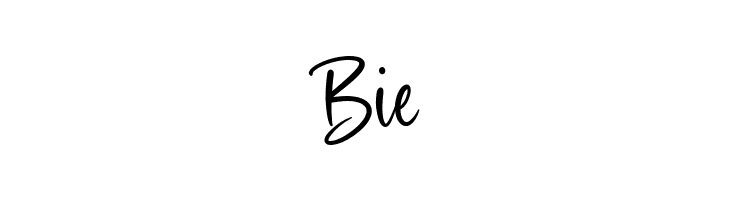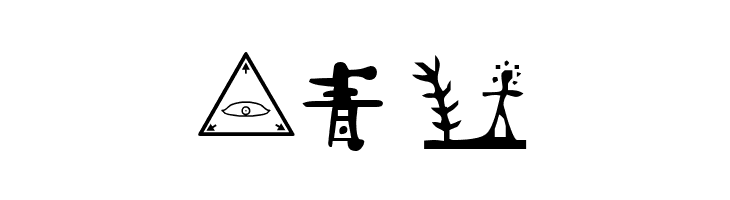
A playful and dynamic handwritten font with fluid strokes and a casual style.
A bold, geometric font with a modern, industrial feel.
Highly decorative font with pictographic, symbolic glyphs.
A graceful and elegant script font with connected characters and a cursive style.
A modern, handwritten font with elongated, elegant letterforms.
A bold, dripping font with a gooey, liquid appearance.
A bold, hand-drawn font with a raw, artistic style and irregular edges.
An ornate Gothic-style font with intricate flourishes and angular strokes.